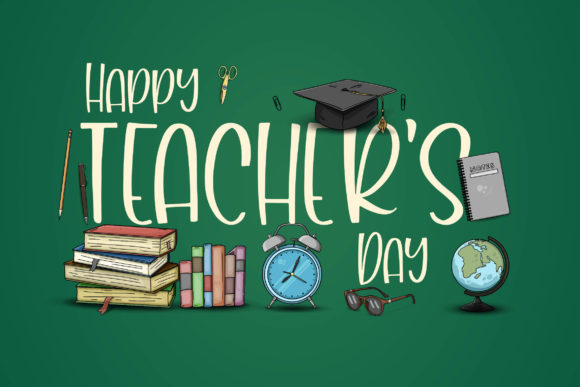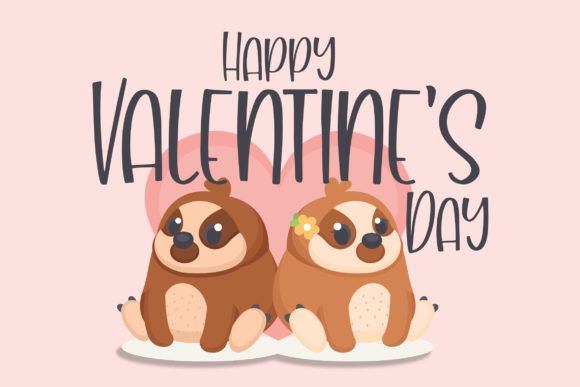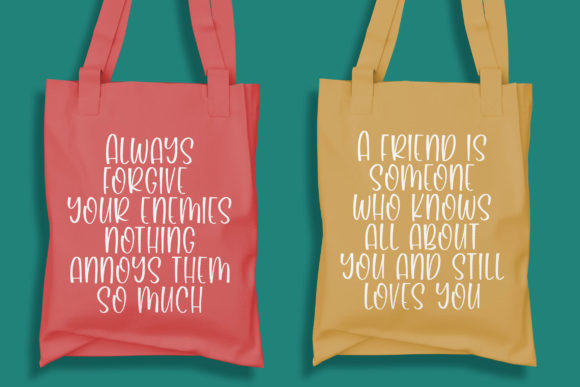
Introduction to Mr. Nicky Font
Have you ever found yourself scrolling through design inspiration boards, and suddenly a quirky, hand-drawn font catches your eye? That’s exactly what happened to me when I stumbled upon the charming Mr. Nicky Font. Its playful nature immediately sparked a creative idea for a fun project I’d been putting off. The more I explored this font, the more I fell in love with its unique style and versatility.
As a designer, I can attest to the value of having high-quality, one-of-a-kind fonts like Mr. Nicky Font in your arsenal. Not only does it add a personal touch to your creative project, but it also sets you apart from the crowd. With a transparent background and a free download option, this font is a design resource that’s hard to resist.
Key Features of Mr. Nicky Font
- High-quality, hand-drawn design with a unique and creative touch, making it perfect for artistic projects.
- Perfect for designers, artists, and creatives working on various projects, including logos, branding, typography, and more.
Honest Review: Mr. Nicky Font
As a designer, I’m always on the lookout for high-quality design resources to elevate my creative projects. Recently, I stumbled upon the Mr. Nicky Font, and I must say it’s been a game-changer for my latest project. ✨ The font’s sleek and modern design has added a touch of sophistication to my designs.
Here are some of the key features that I love about the Mr. Nicky Font:
- High-quality design that looks great on various devices
However, I did encounter a few limitations: ⚠️ The font is not suitable for all types of designs, and it may not be as versatile as some other fonts on the market. Additionally, the font’s size options are limited, which may be a drawback for designers who need more flexibility.
Overall, I’m thoroughly impressed with the Mr. Nicky Font. Its unique design and high-quality features make it an excellent addition to any designer’s toolkit. While it may have some limitations, I highly recommend it for designers looking to add a touch of modernity to their creative projects.
Tips for Getting the Most Out of Mr. Nicky Font
Use Mr. Nicky Font in conjunction with a transparent background for a clean and modern look.
Experiment with different font sizes and styles to create visual interest in your design.
Mr. Nicky Font is ideal for use in:
Logo design
Business cards
Brochures
Marketing materials